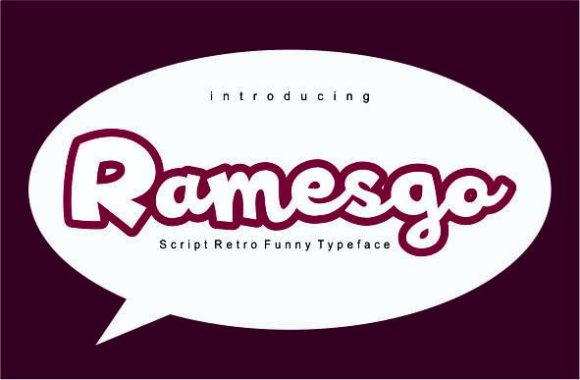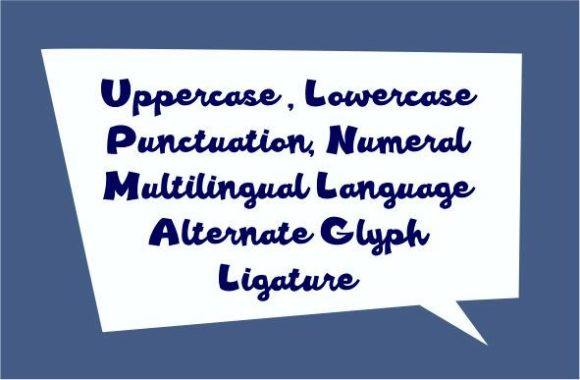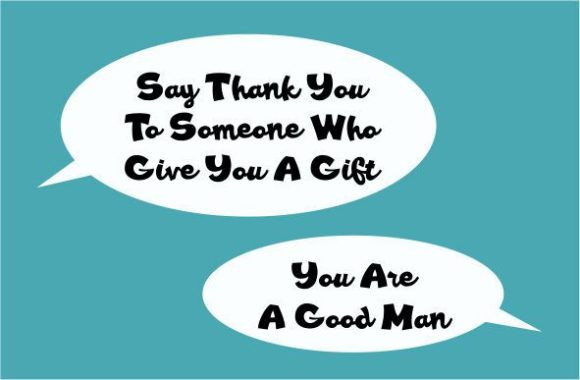
Ramesgo Font
Ramesgo looks bold, yet sophisticated and features chunky and extended characters that will look particularly adept when used in logos, branding, packaging design, and much more. This masterfully designed display font is a true must-have.